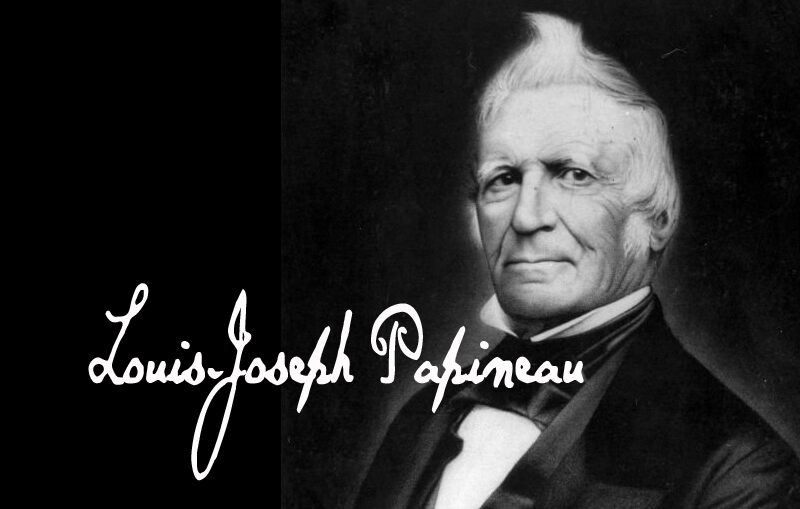
Papineau by Steve Cloutier is a free handwritten font with sweeping, highly connected forms. Thick and thin strokes change abruptly, giving the lettering a lively, inked quality. Long loops are its clearest feature.
Romance and ceremony are natural subjects for this expressive lettering. It suits wedding invitations, boutique packaging, and music posters with a personal, theatrical bent. On book covers, its loops can mingle with vines or ribbon illustrations as part of the decorative image.